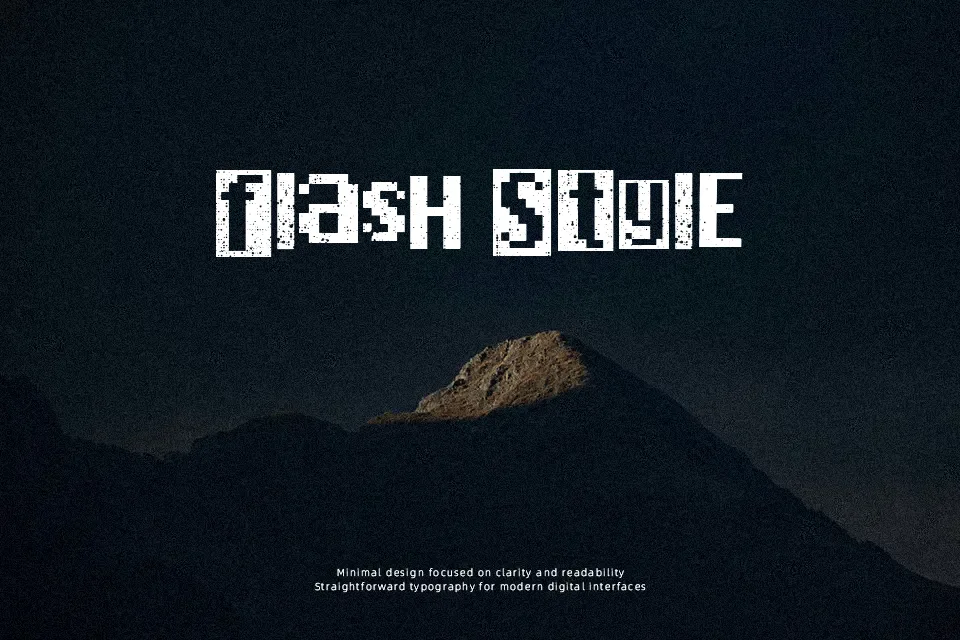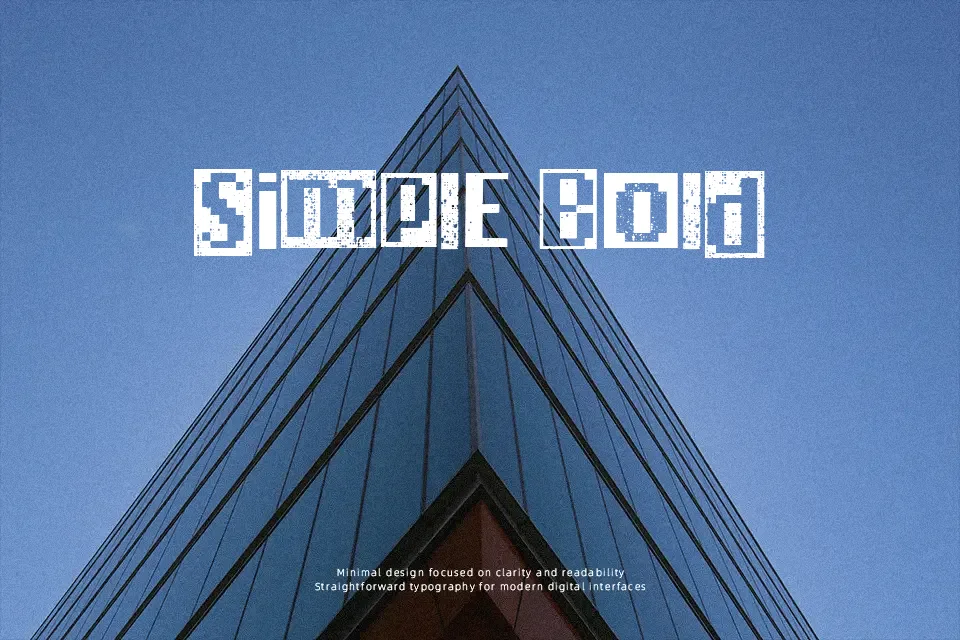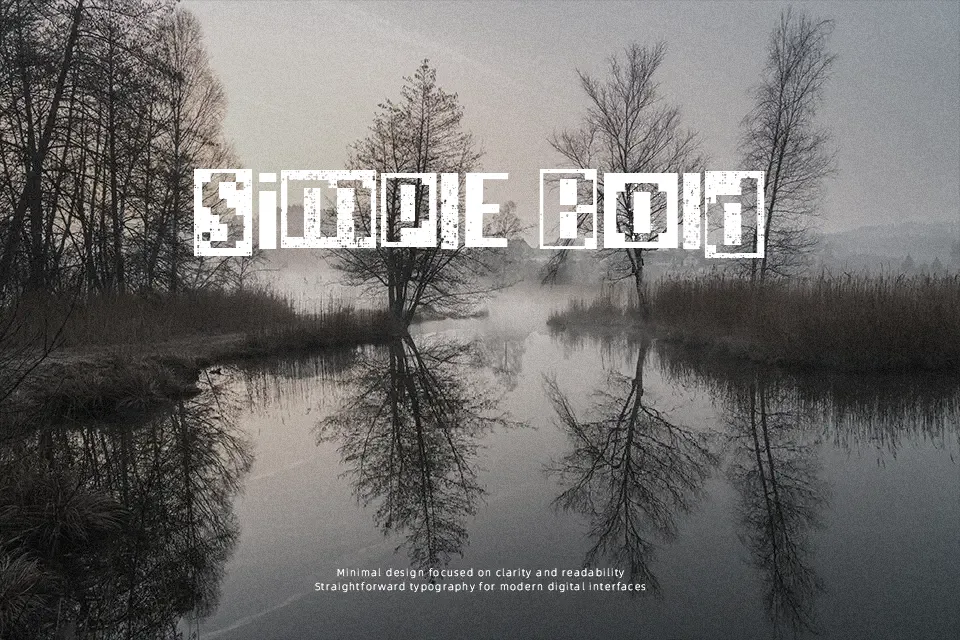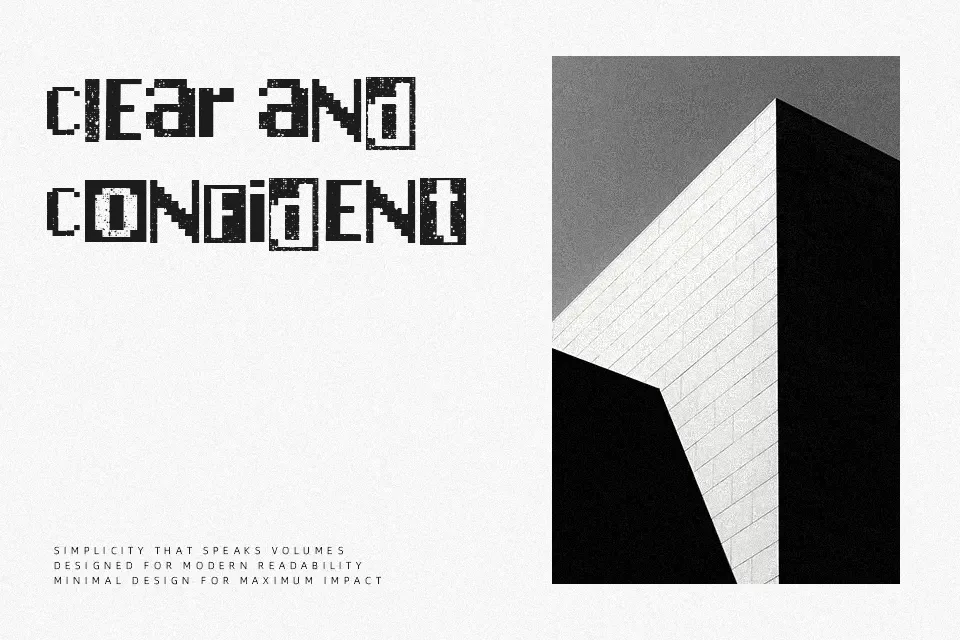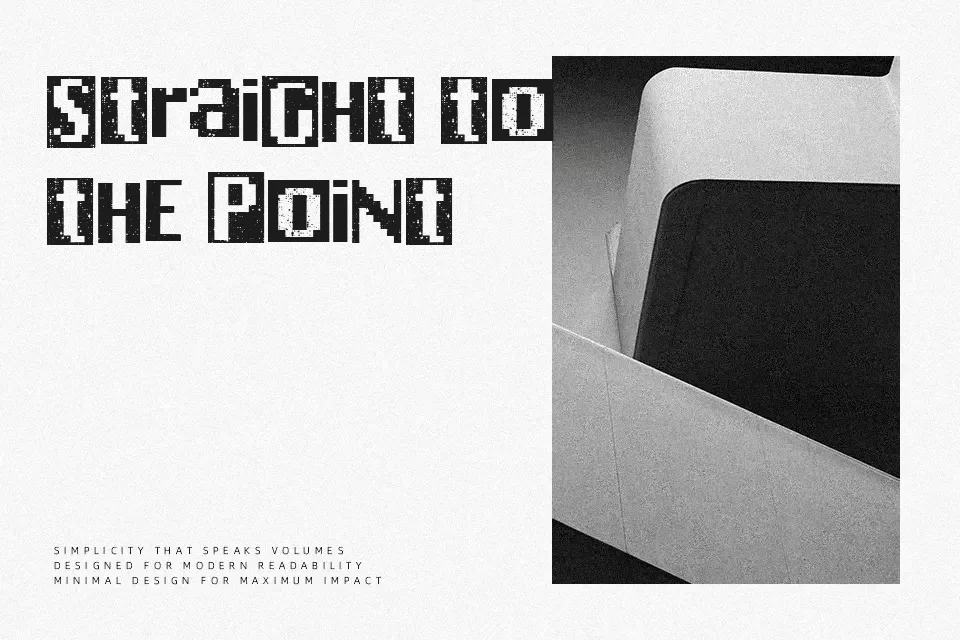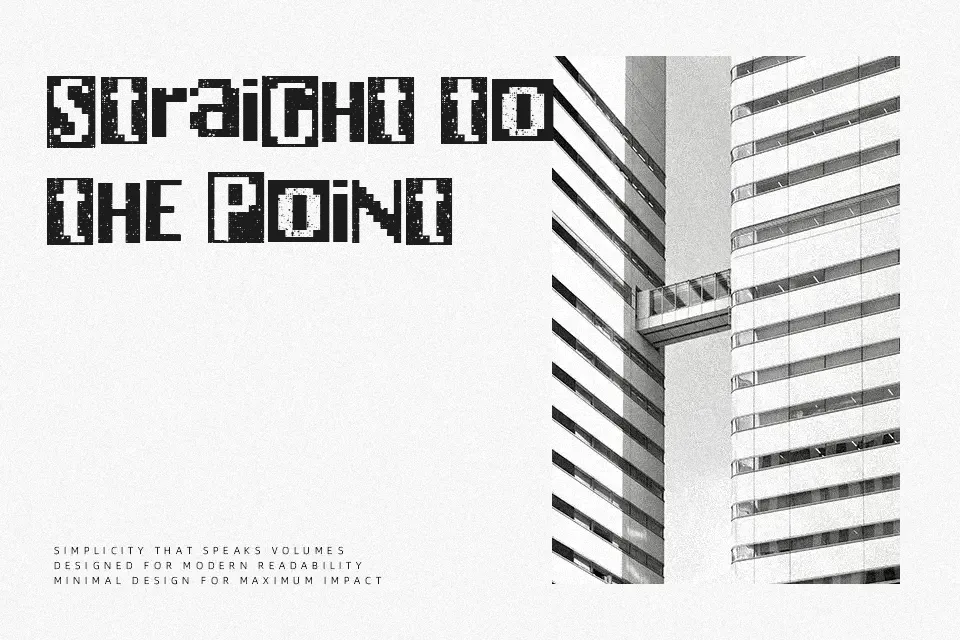
Chicago Punk Font
Chicago Punk Font features heavy sans-serif proportions broken by rugged, irregular distress textures and weathered contours across every character. The typeface maintains consistent bold stroke weights, though deep erosion and jagged edge cutouts generate an intense visual rhythm. Character spacing is relatively compact, which helps keep short display lines tight and impactful at generous scale. The letterforms remain easy to distinguish in prominent headlines, poster titles, and gritty packaging concepts. However, the heavy structural degradation reduces clarity at smaller scales, making the design unsuitable for extended reading passages, technical tables, or dense layout environments.
Best For: music festival posters, underground zine covers, streetwear apparel graphics, punk rock album art
Not Ideal For: long paragraph text, corporate reports, mobile app body copy, dense editorial layouts
Perfect for branding, headline, and music, with a bold and decorative style.